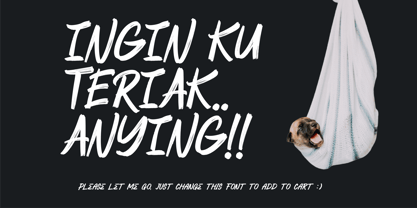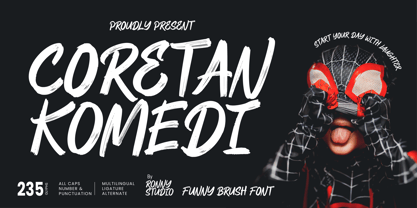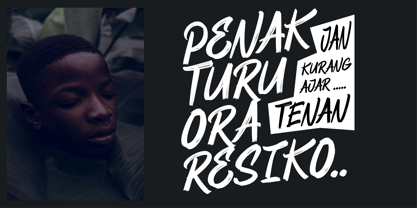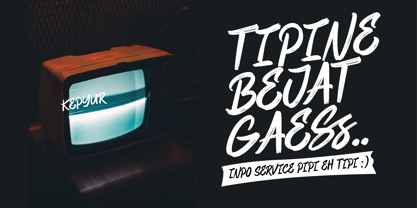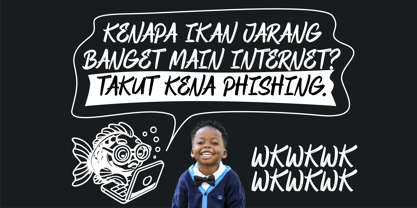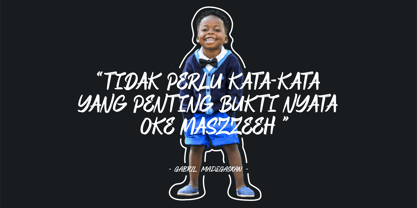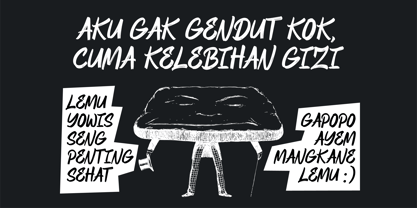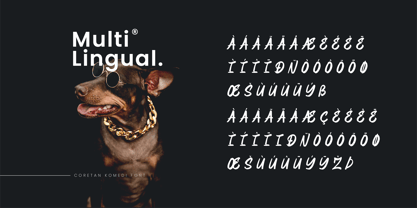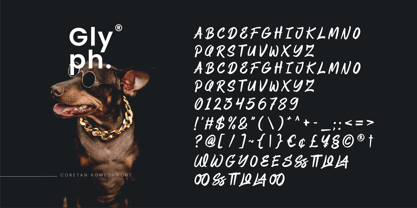
Coretan Komedi
by Ronny Studio
The Coretan Komedi Font Family was designed by Rony Rizki Jaya and published by Ronny Studio. Coretan Komedi contains 1 styles. More about this family
Coretan Komedi is a playful and bold brush font perfect for adding humor and energy to your designs. With 235 glyphs, multilingual support, ligatures, and alternates, this all-caps font is ideal for headlines, posters, and fun projects, it’s your go-to font for creating eye-catching, lively visuals!